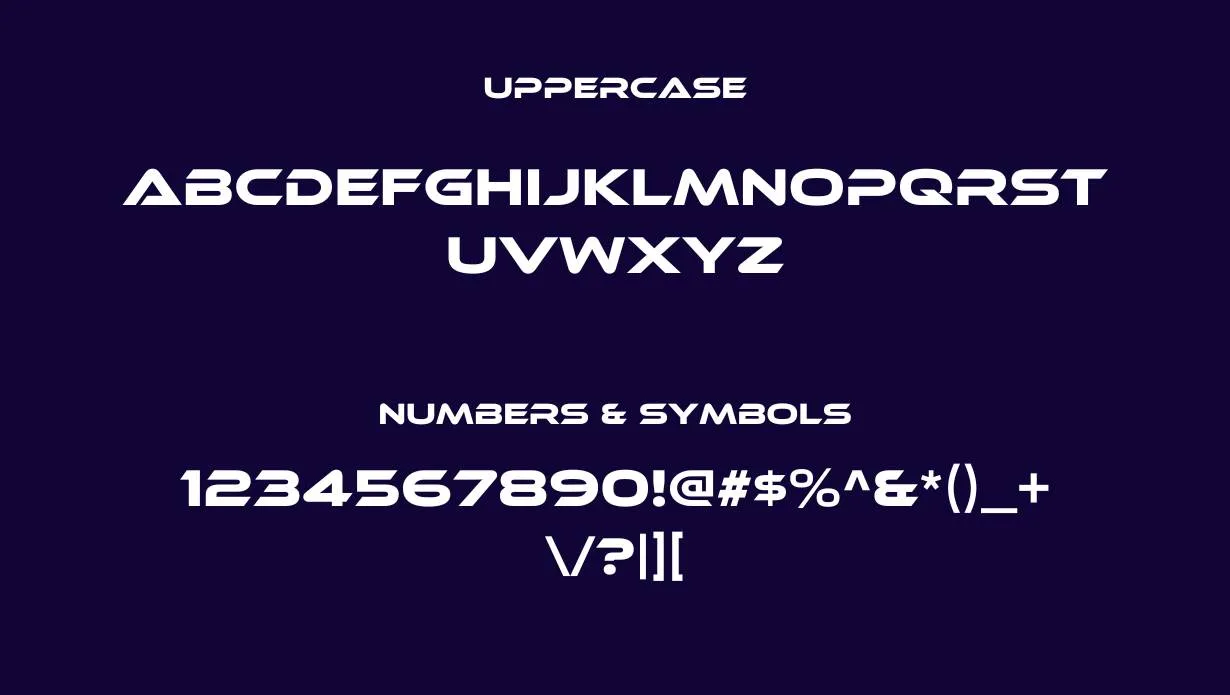
Ethnocentric Display Sans Font is a versatile and legible typeface suitable for various design applications.
Its clean lines and modern design make it a practical choice for branding, advertising, web design, and packaging.
| Name | Ethnocentric Display Sans Font |
| Designer | Typodermic Fonts |